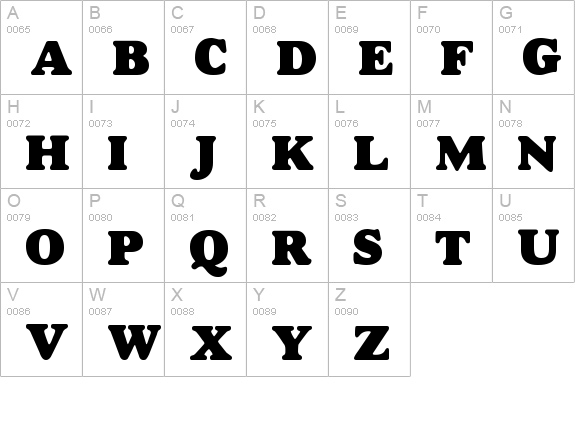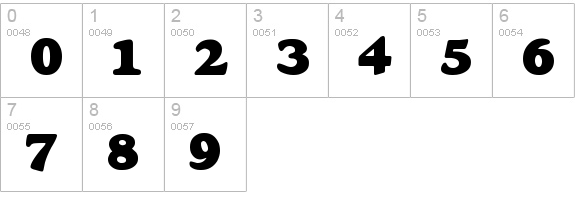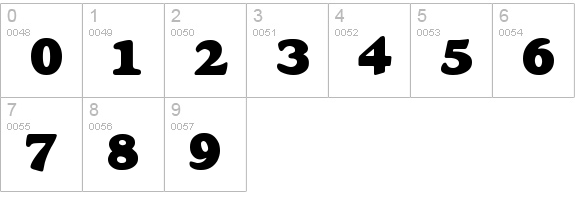
Gordo Font Details
Gordo font is a stunning display typeface that exudes elegance and sophistication. With its bold and eye-catching design, Gordo is perfect for creating impactful headlines, signage, branding materials, and more. This versatile font features clean lines and a modern aesthetic that will elevate any design project. The best part? Gordo font is available for free download at FontsMarket.com. This means you can easily access this premium font without any cost, making it a valuable addition to your font collection. Whether you're a designer, artist, or creative professional, Gordo font is sure to inspire your next project with its unique style and versatility. Download Gordo font today and unleash your creativity!